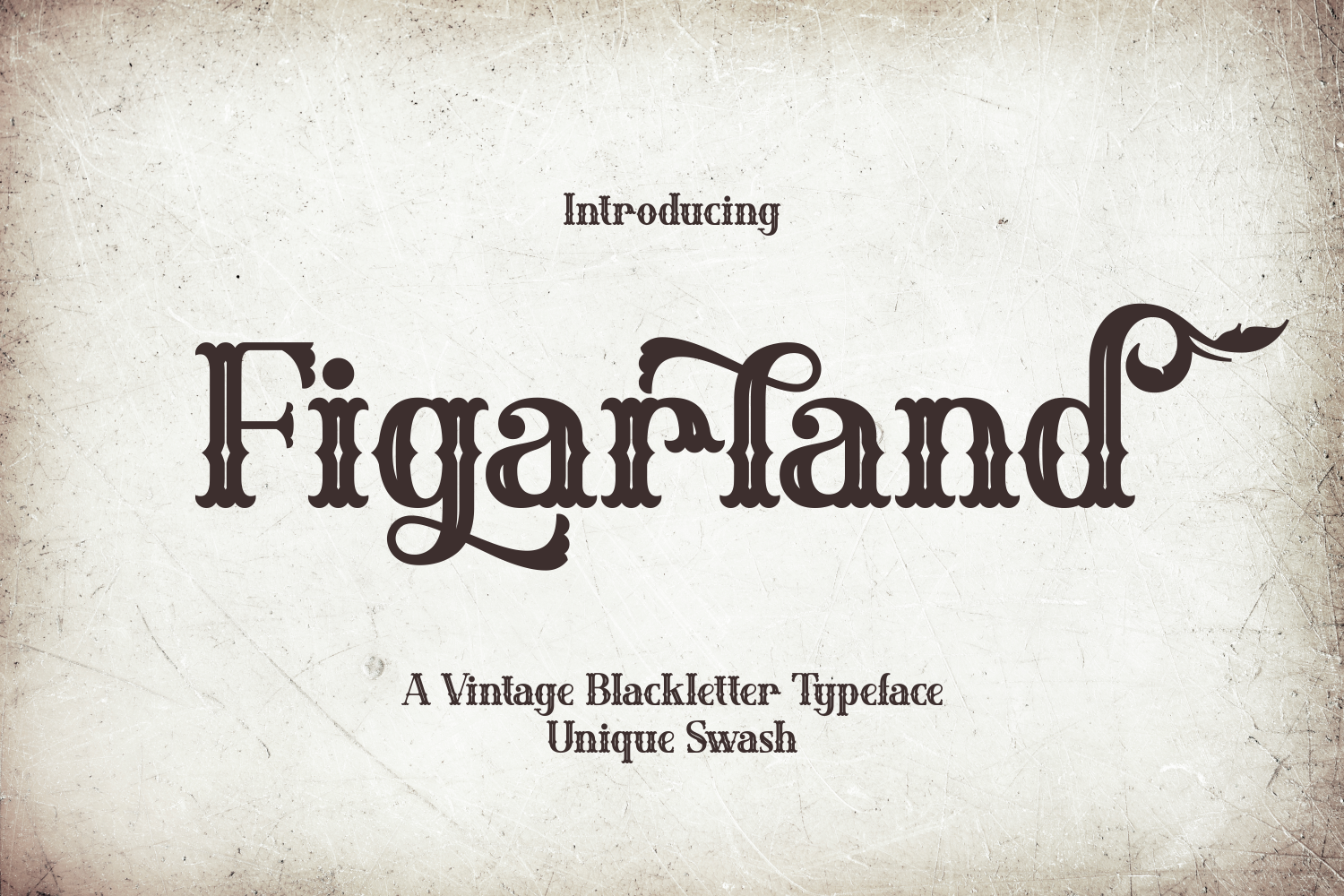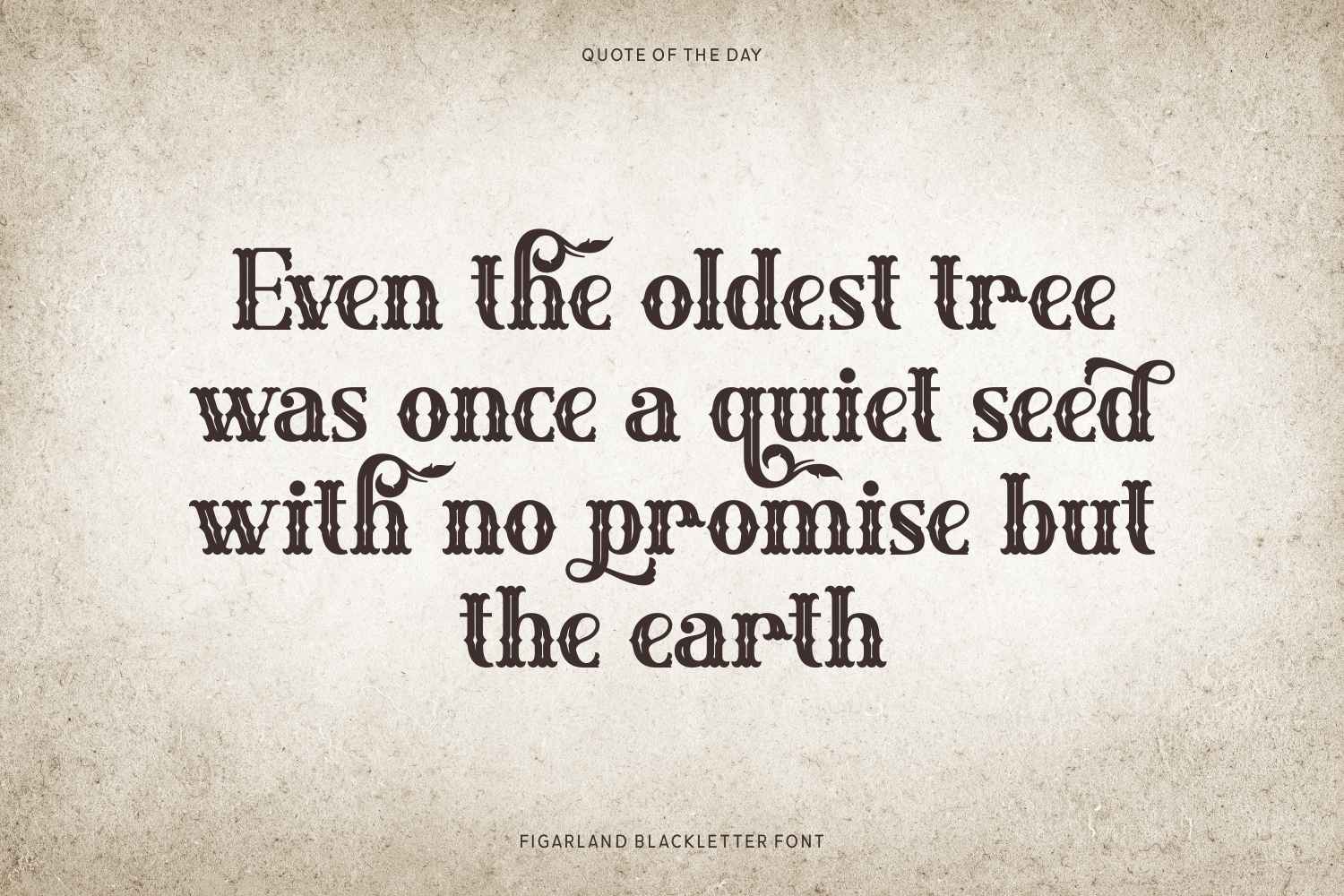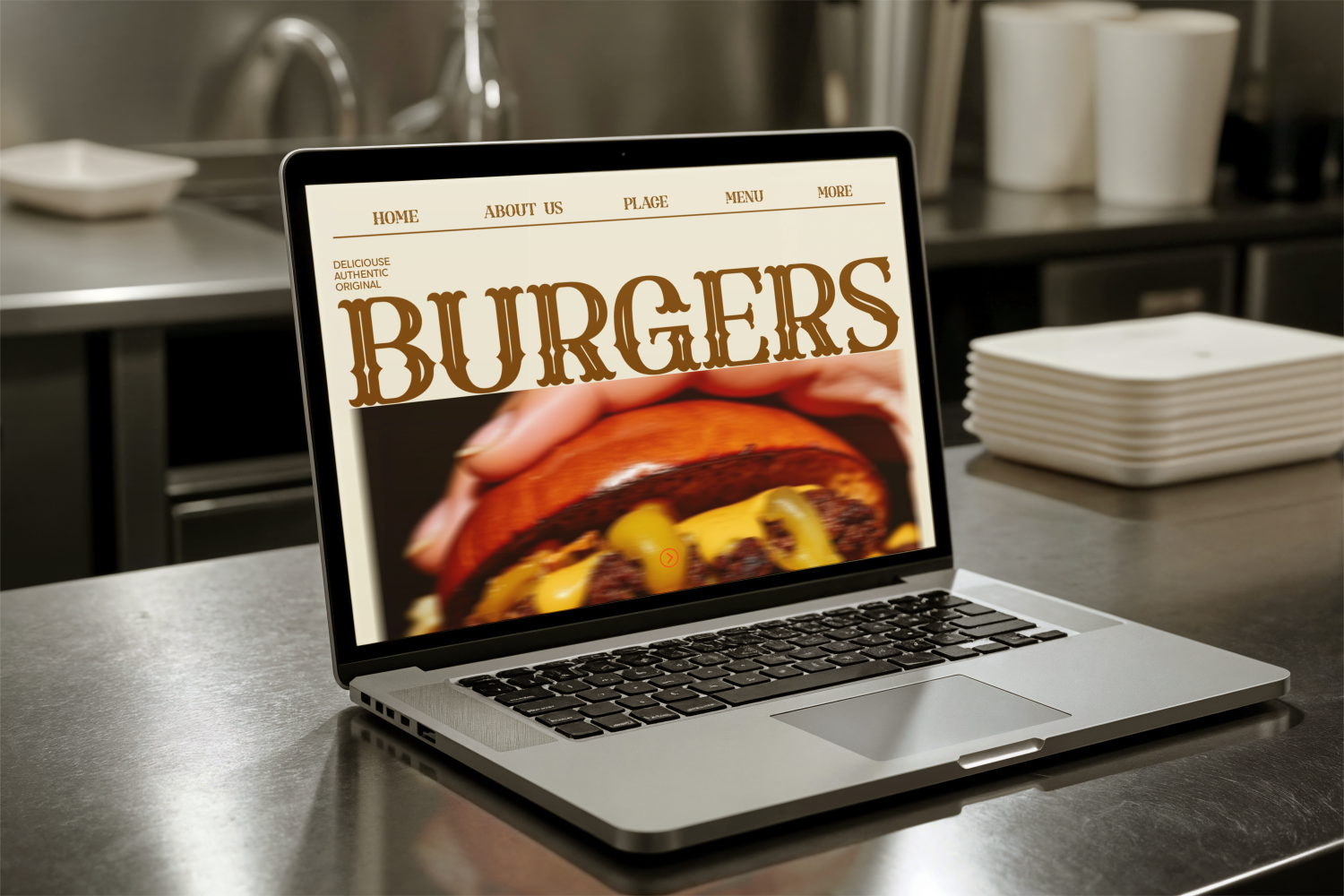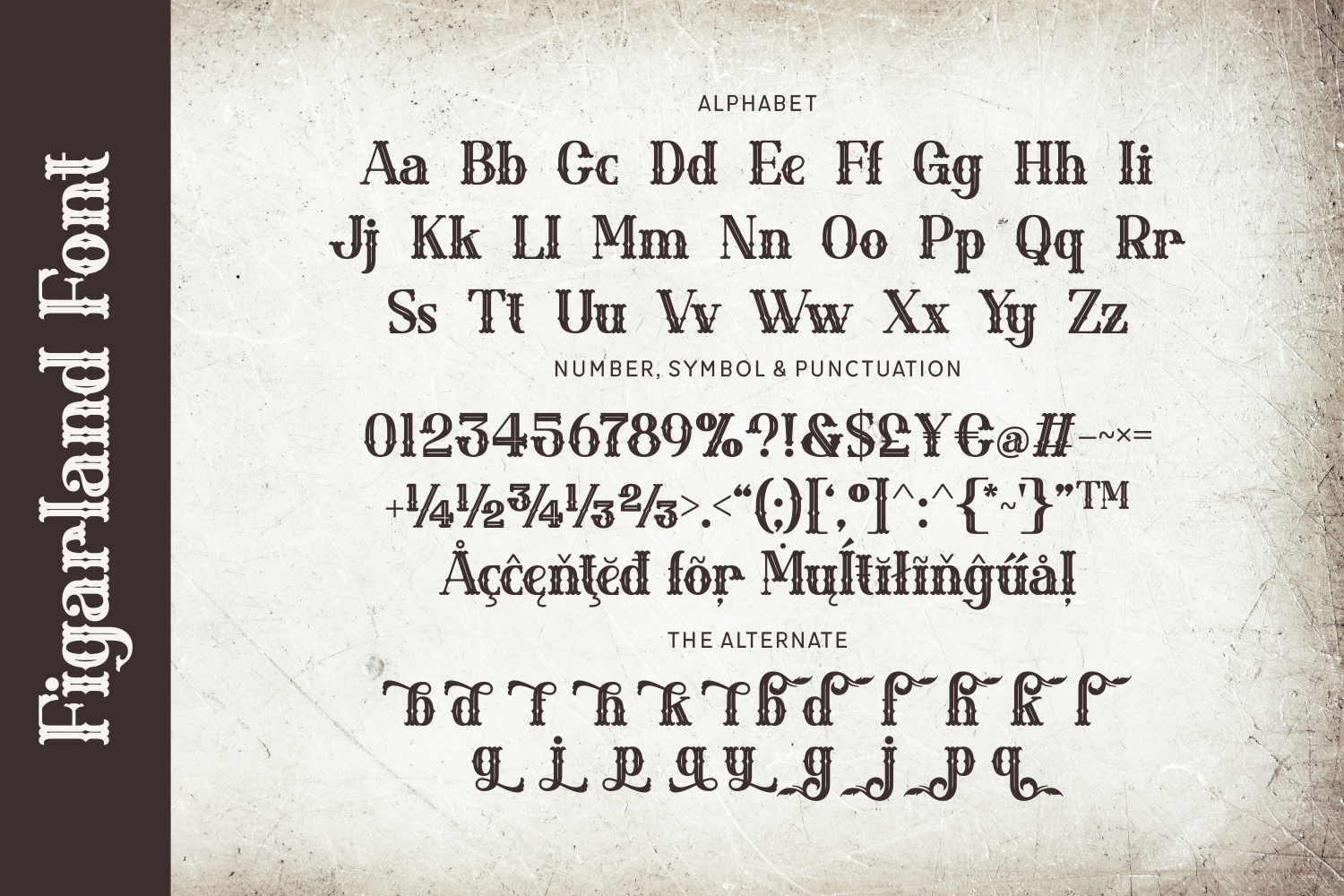
Figarland is a whimsical vintage blackletter font with ornate swashes and fairytale flair. Its delicate curves and playful extensions make it perfect for fantasy covers, boutique branding, artisan packaging, or anything with a magical or historic touch.